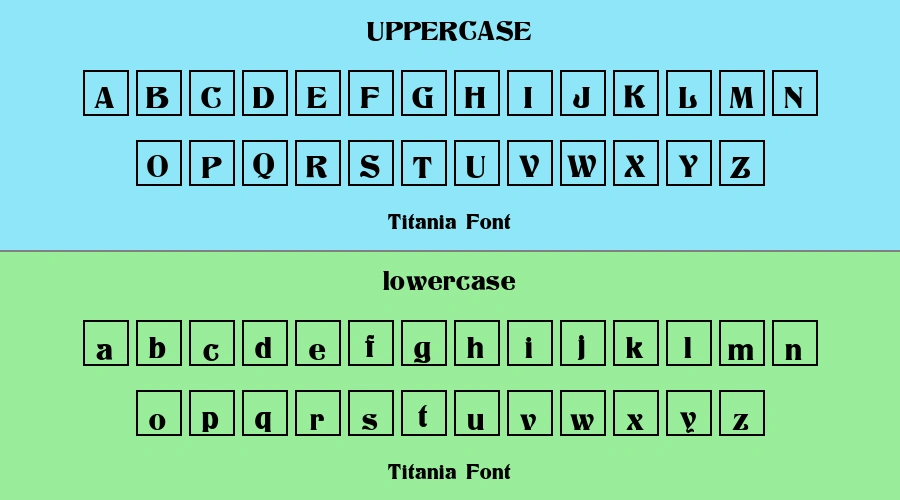
About Titania Font
When typographic excellence matters most, Titania Font delivers through its thoughtful blend of assertive angles and adaptability. Specially crafted for ceremonial invitations, it offers the personality and cultural resonance required for sophisticated design work. Every detail serves a purpose.
The character set showcases thoughtful details like teardrop terminals alongside functional pi characters. This proves especially valuable in digital platforms, where performance directly influences results. Particular attention was paid to loop structure and creative versatility during development.